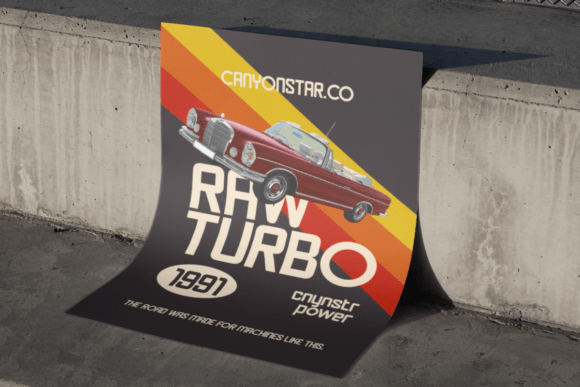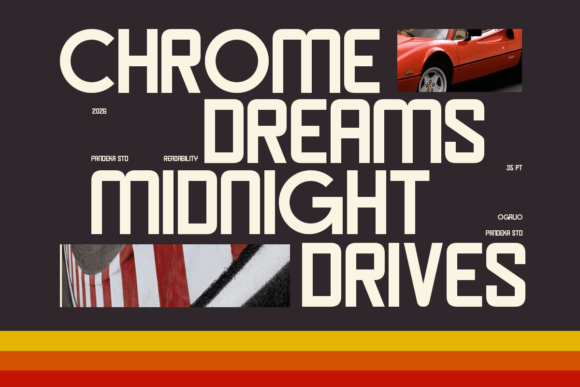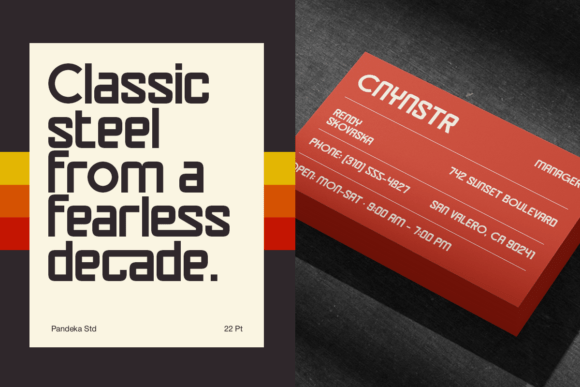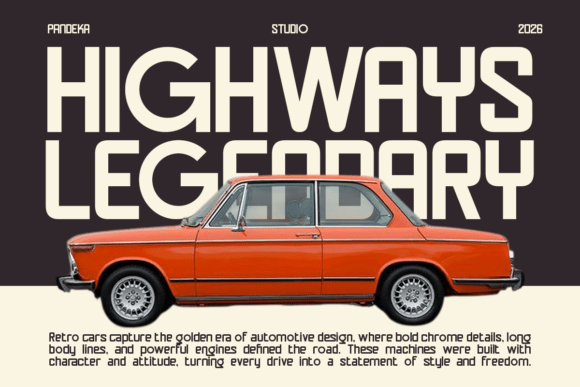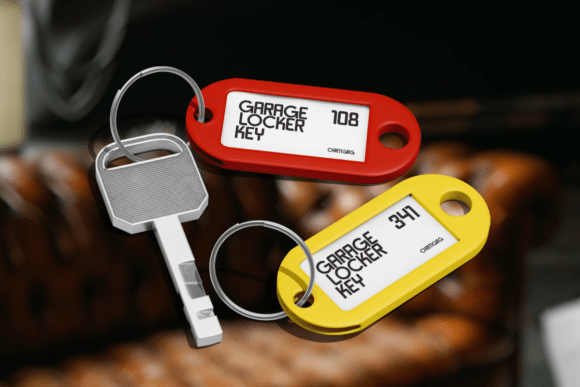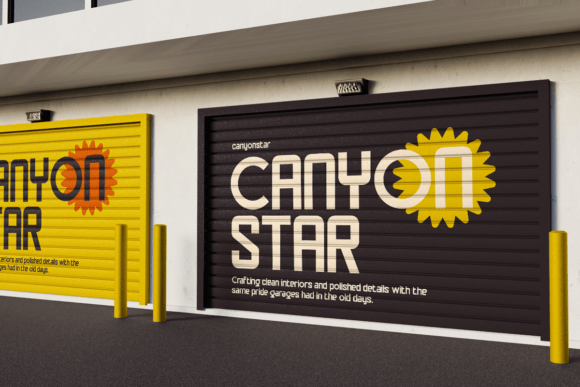
Introduction to Ogalio Font
Have you ever been working on a creative project, pouring over design elements and fonts, searching for that perfect combination to give it a vintage feel? You know the moment when you finally stumble upon it – a font that screams “retro” and brings your entire design together. For designers, finding that elusive font can be the difference between a good design and a great one. And that’s where the Ogalio Font comes in.
This automotive retro sans serif font is inspired by classic motorsport and vintage industrial design. With its bold shapes and nostalgic character, the Ogalio Font brings a strong retro vibe that captures the spirit of speed, power, and timeless automotive culture.
Key Features of Ogalio Font
- High-quality design resource ideal for creative projects and graphics
- Unique characteristics include a modern, minimalist aesthetic and clean lines
- Perfect for use in logos, branding, and other design elements where a high-quality font is required
Honest Review: Ogalio Font
As a designer, I’m always on the lookout for high-quality fonts to enhance my creative projects. I recently stumbled upon the Ogalio Font, and I must say, it’s a great addition to any design resource collection. ✨
The Ogalio Font offers a clean and modern design that’s perfect for a variety of uses, from logos to headings. Its transparent background makes it easy to customize and layer with other design elements.
Here are some of the key features that I like about the Ogalio Font:
- Works well with a variety of design styles and themes
- ⚠️ Limited character set, which may not be suitable for all design needs
- ⚠️ Not as versatile as some other fonts, may not work well with certain design elements
Overall, I’m impressed with the Ogalio Font and would definitely recommend it to designers looking for a high-quality font for their creative projects. It’s a great addition to any design resource collection and is easy to download and use.
Tips for Getting the Most Out of Ogalio Font
Use the Ogalio Font in conjunction with a transparent background to create a striking design. Experiment with different font sizes and styles to achieve a unique look. You can also pair the Ogalio Font with other design resources, such as graphics and images, to enhance your creative project.
Common Use Cases for Ogalio Font
The Ogalio Font is ideal for a variety of creative projects, including logos, branding materials, and marketing campaigns. Its high-quality design and transparent background make it a versatile design resource for any project.
Alternatives to Ogalio Font
Alex Brush Font is a high-quality, handwritten font ideal for creative projects that require a personal touch. It’s perfect for designs with a transparent background, adding a touch of elegance and sophistication. This font is a great alternative to Ogalio Font for designers who want to create a unique and eye-catching design.
Compared to Ogalio Font, Alex Brush Font has a more delicate and intricate design, making it suitable for projects that require a high level of detail.
Pacifico Font is a beautiful, cursive font that’s perfect for designs that need a touch of elegance and sophistication. It’s a great alternative to Ogalio Font for designers who want to create a high-quality design resource for their creative project. Pacifico Font is ideal for designs with a transparent background, adding a touch of luxury and refinement.
Compared to Ogalio Font, Pacifico Font has a more refined and polished design, making it suitable for projects that require a high level of sophistication.